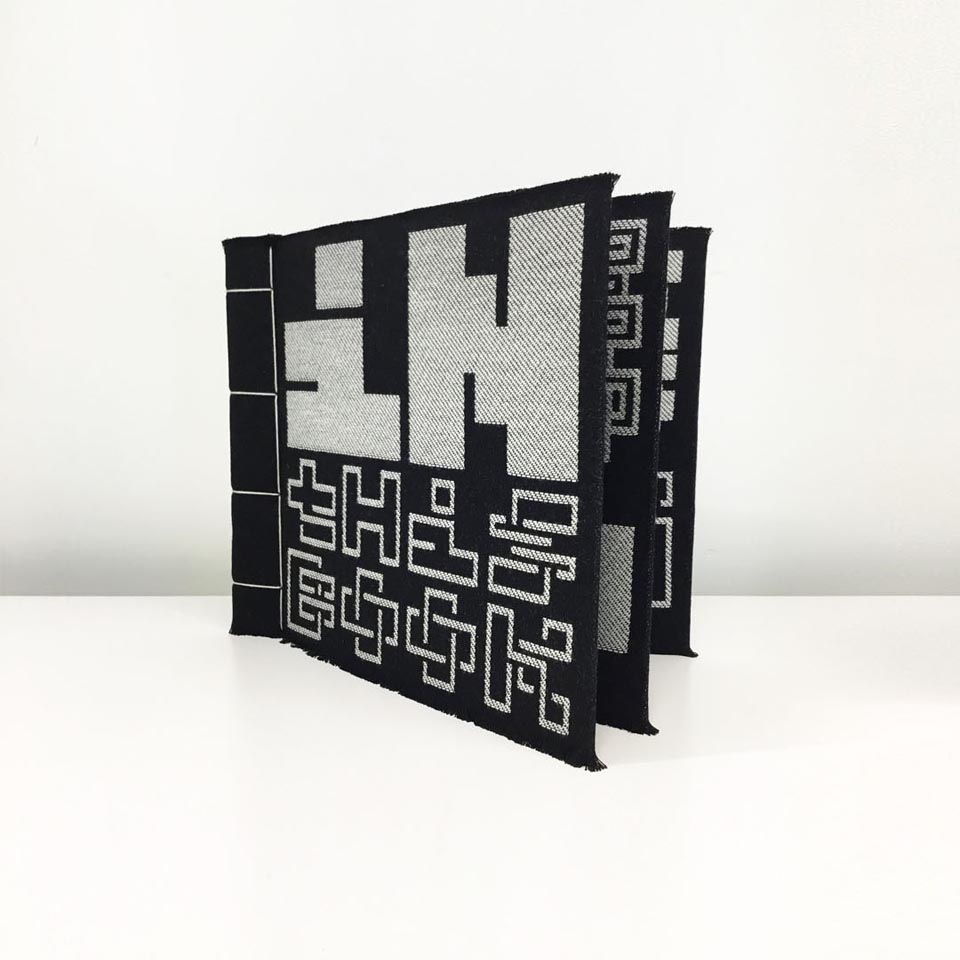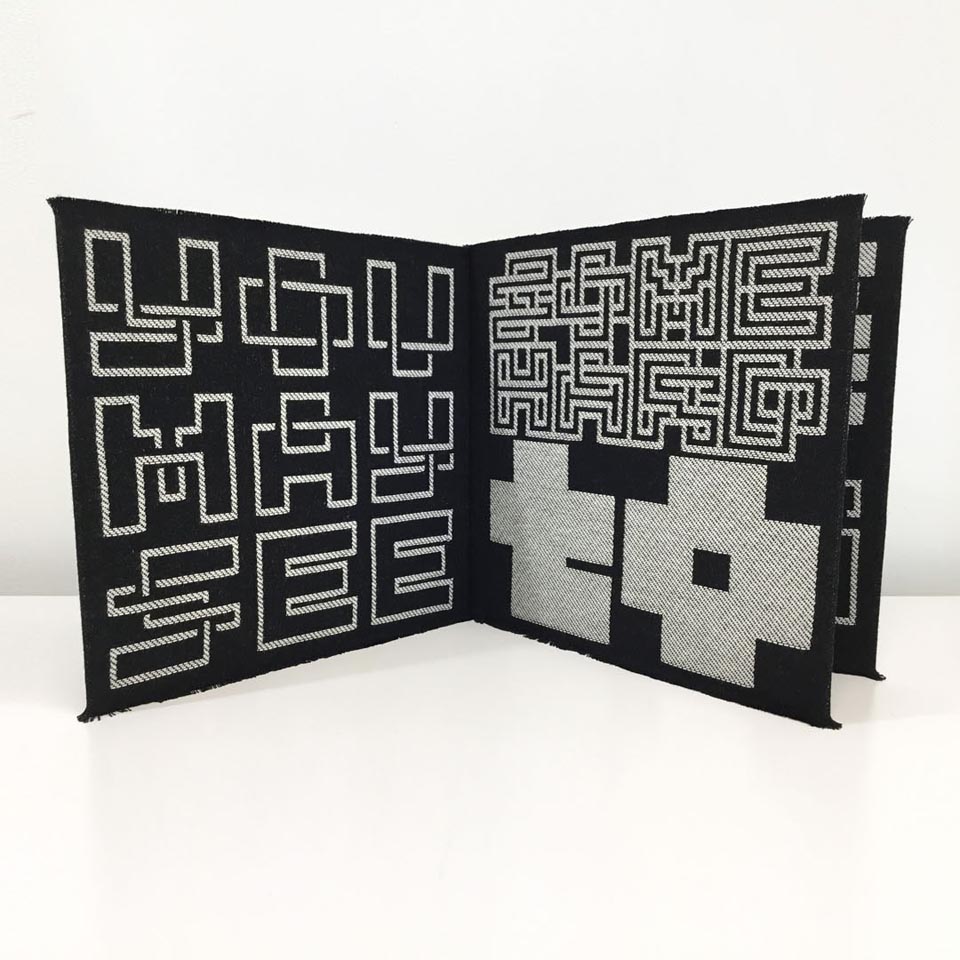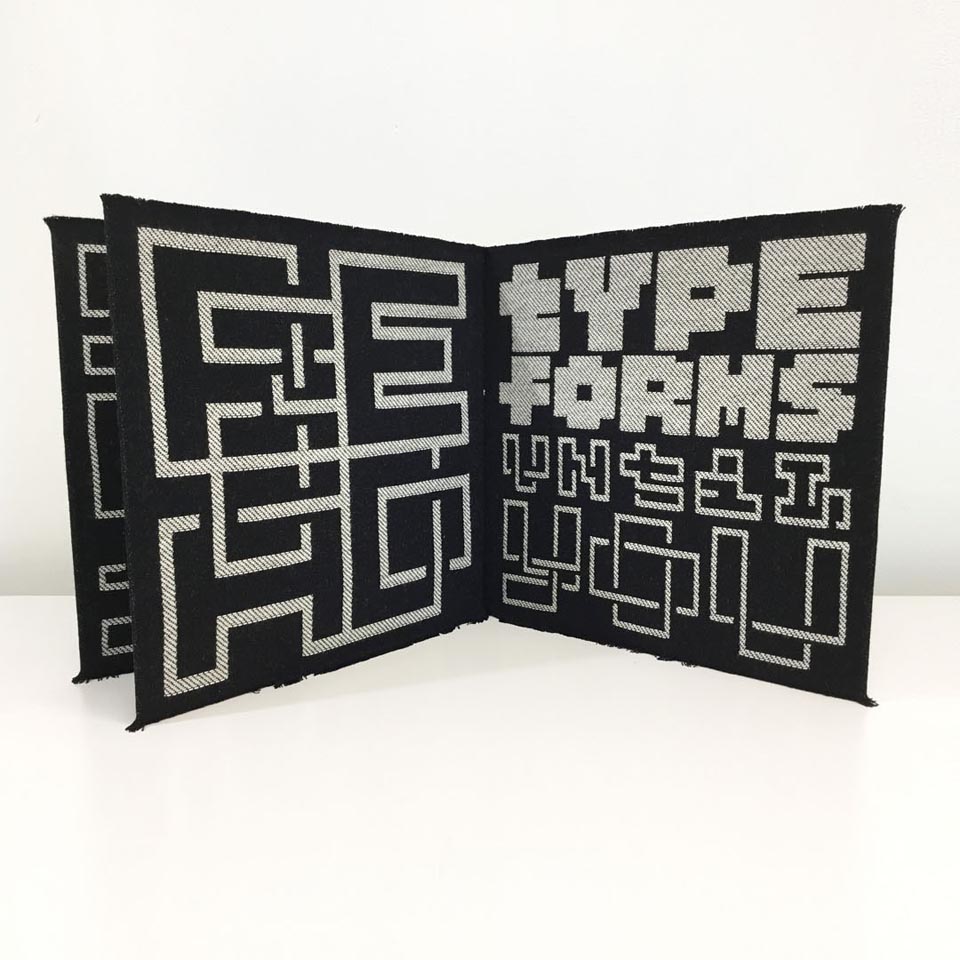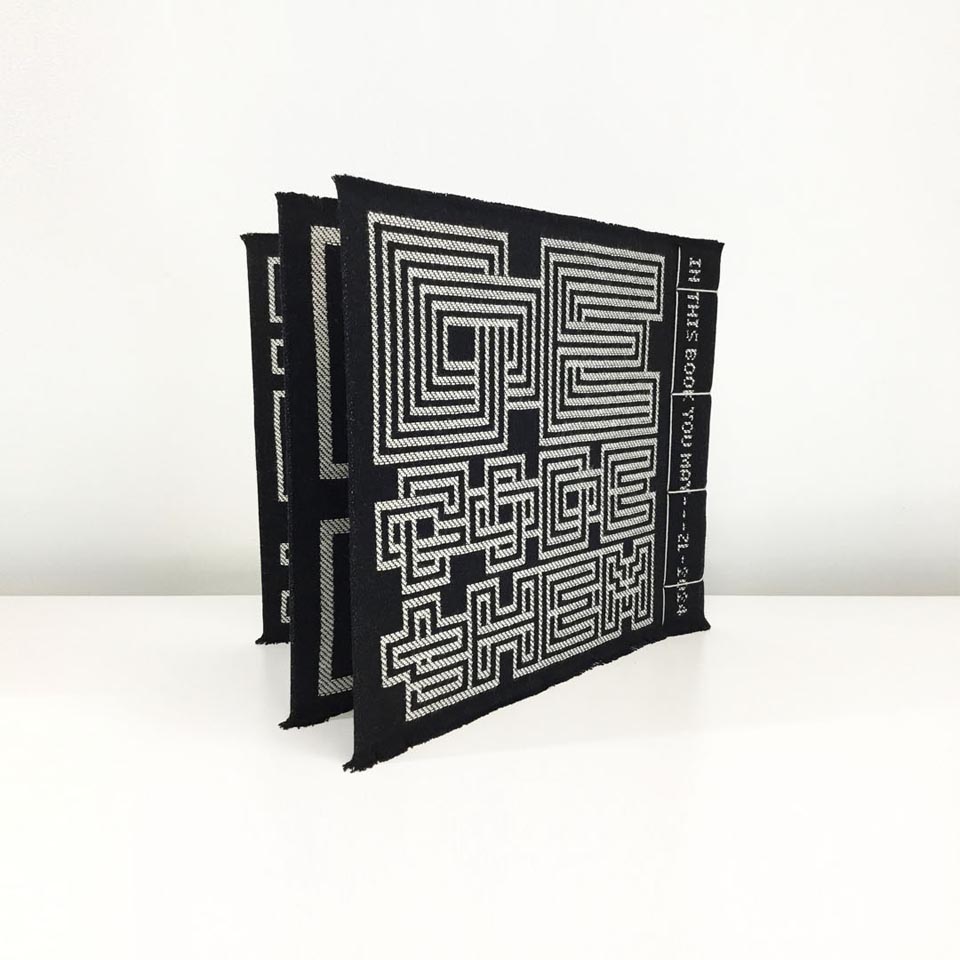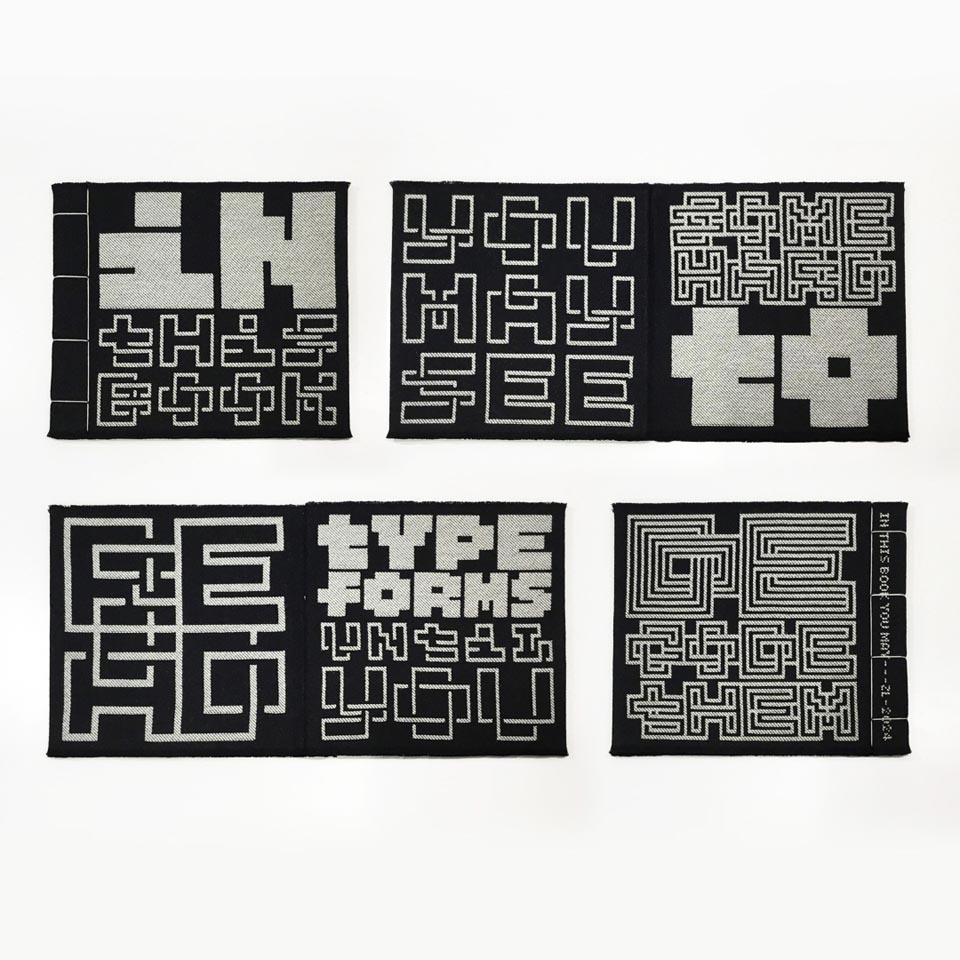
“In this book...” Woven Book
"In this book you may see some hard to read type forms, until you decode them."
From a series of book objects that plays with type as abstraction, exploring the boundary between letterforms as pattern versus their legibility.